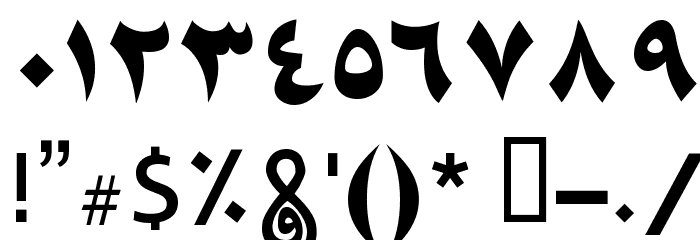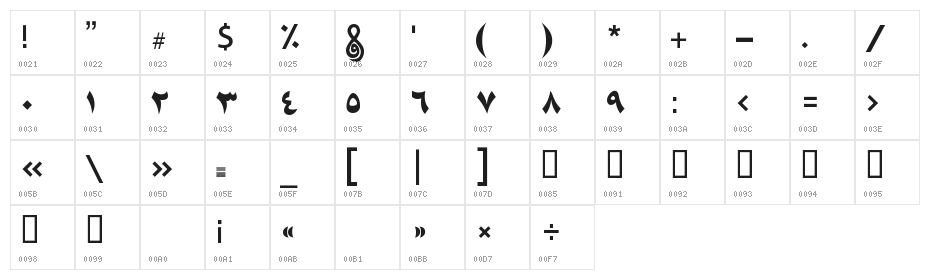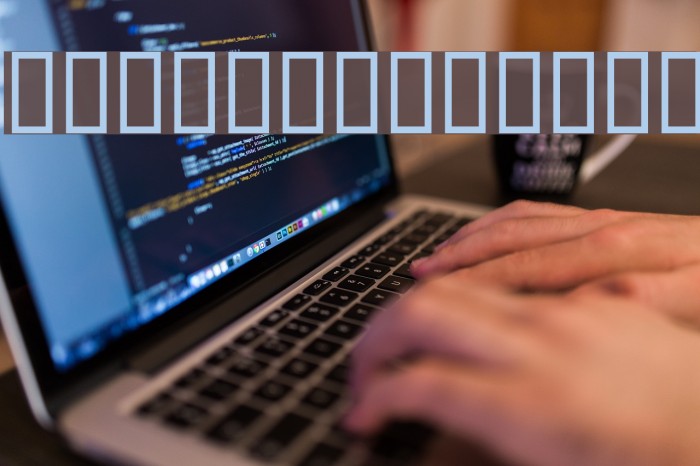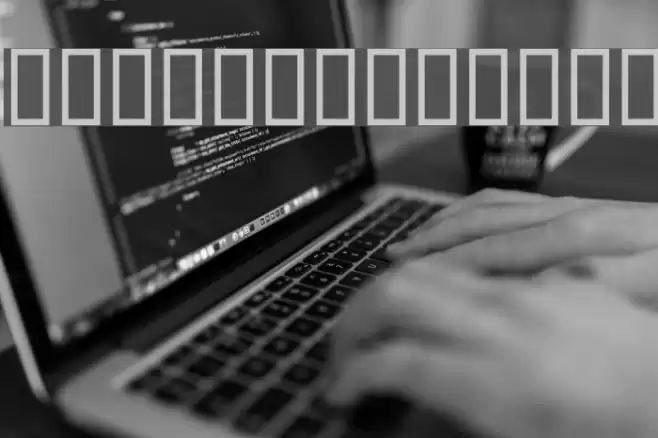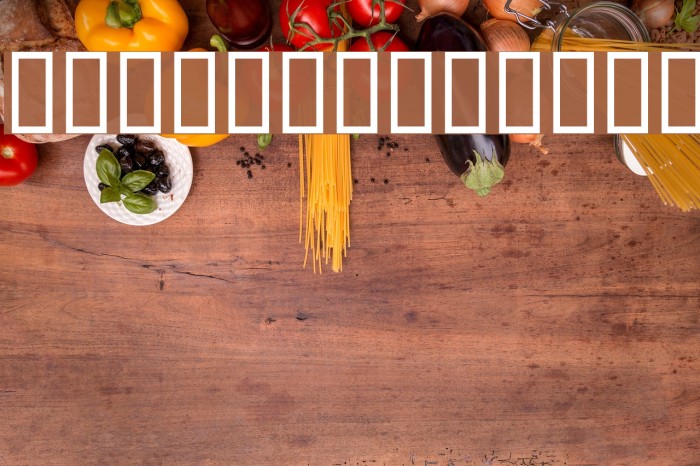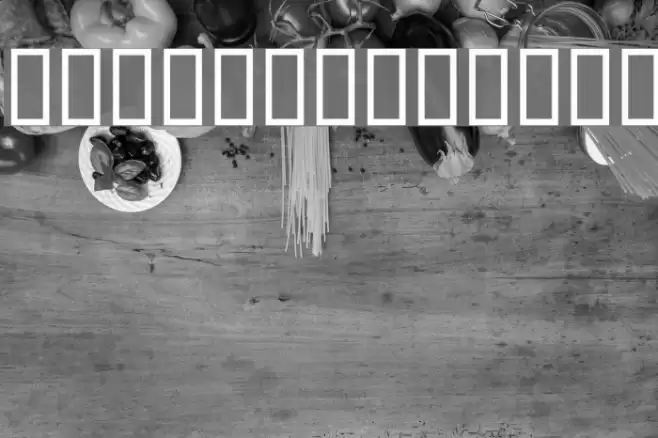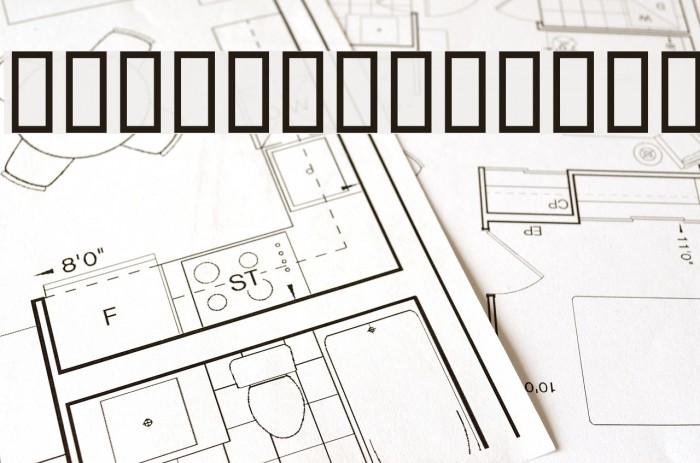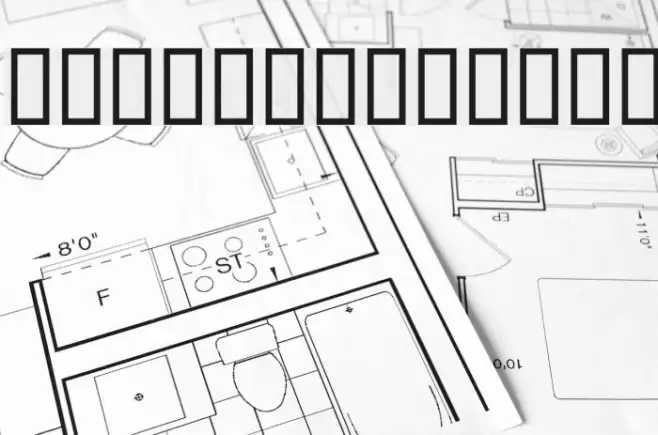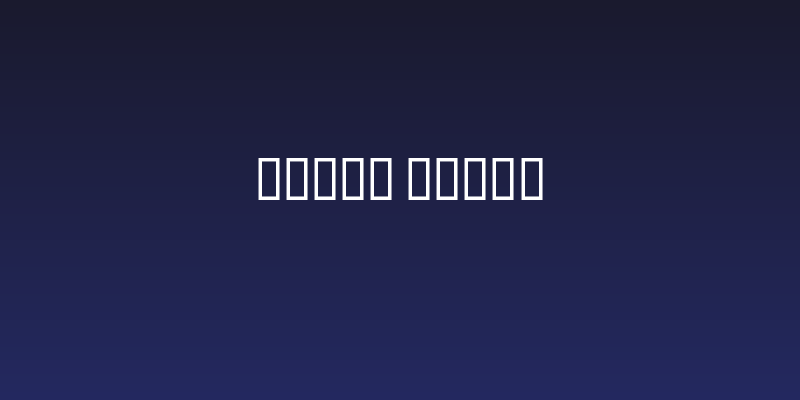
Naskh Black Font
Naskh Black Description
This font features a bold and striking appearance, characterized by thick, heavy strokes that convey a sense of strength and authority. The characters are well-defined with a high contrast between thick and thin lines, giving it a dynamic and impactful look. The numerals and special characters are designed with a similar boldness, ensuring consistency across all elements. The overall style is modern yet retains a classic touch, making it versatile for various applications.
| Proposed Projects | Ideal for headlines, posters, branding, and logo design where a strong visual impact is desired. |